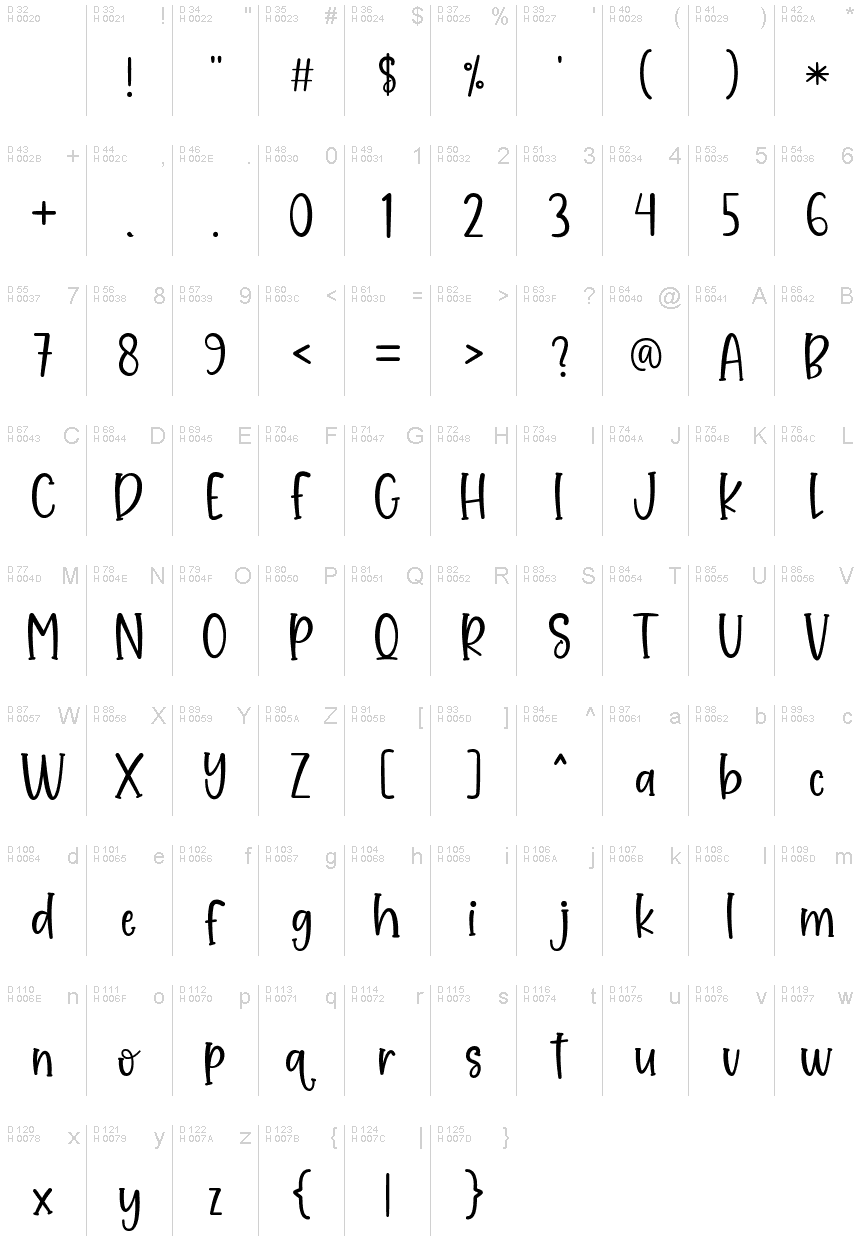
Sweet Peach
Sweet Peach, a delightful creation by AM Designs, is a captivating display font that exudes playful charm. With its cartoon-style appeal and semi-condensed width, this font is perfect for a wide range of projects.
Bring whimsy to children's book illustrations or add a touch of fun to your animated videos. Stand out with eye-catching signage and posters or infuse your brand identity with a dash of creativity. Sweet Peach is versatile and sure to leave a lasting impression wherever it's used.
Let your imagination run wild with this delightful typeface!